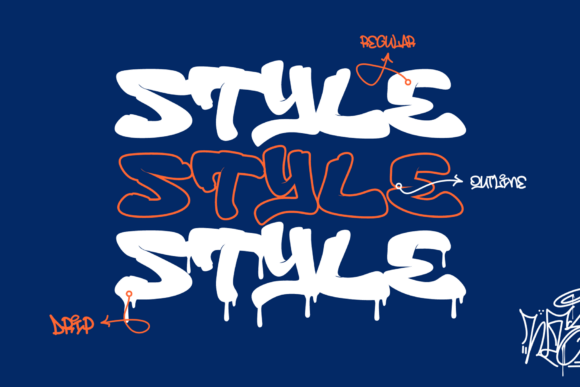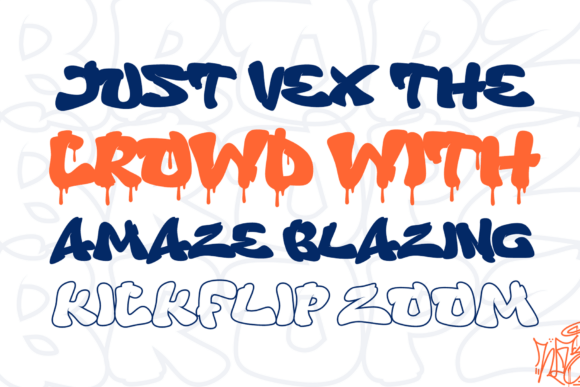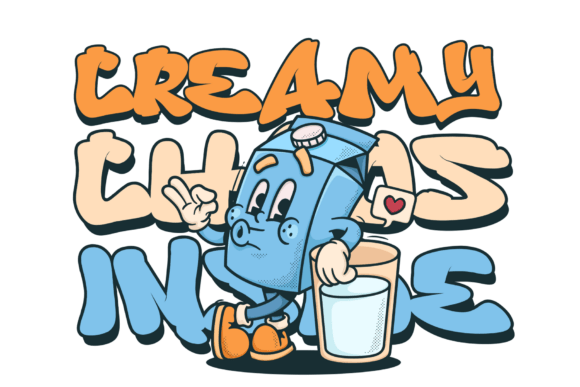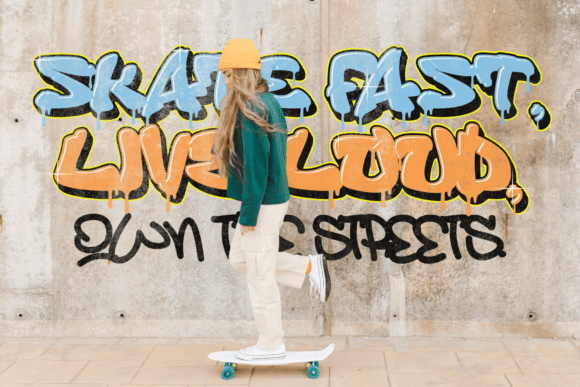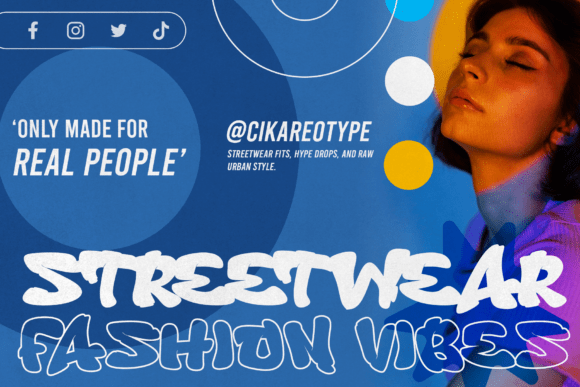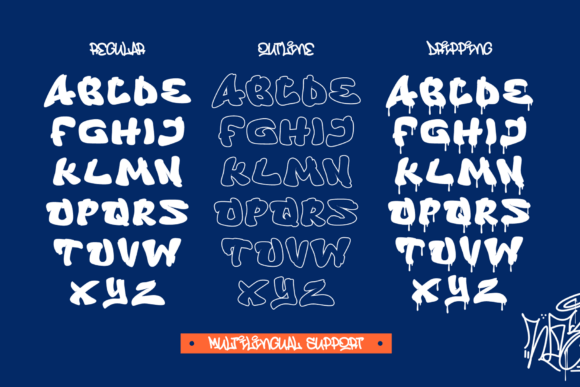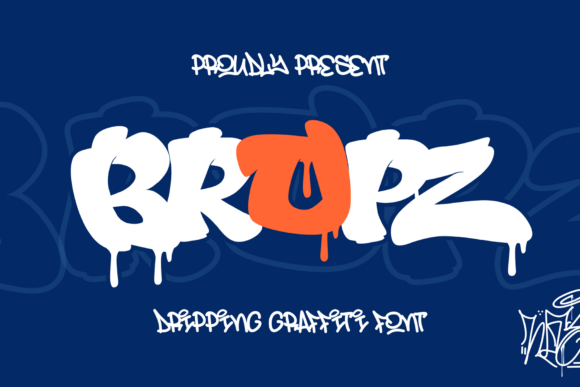
Introducing Bropz Font: The Ultimate Graffiti-Inspired Typeface for Bold Designs
Are you looking for a font that adds a touch of urban attitude to your designs? Look no further than Bropz, a bold and energetic dripping graffiti font that’s perfect for creating eye-catching posters, hip-hop album covers, sticker designs, streetwear, and more. With its thick, rounded strokes and expressive drips on every character, Bropz captures the raw, rebellious spirit of urban art, making it an ideal choice for designers and crafters who want to add a youthful, edgy vibe to their projects.
The Unique Features of Bropz Font
Bropz is more than just a font – it’s a statement piece. Its unique features make it stand out from other typefaces, and its versatility ensures that it can be used in a variety of design contexts. Here are some of the key features that make Bropz so special:
- Thick, rounded strokes: Bropz has a bold, chunky feel that’s reminiscent of graffiti art. Its rounded strokes give it a friendly, approachable vibe that’s perfect for designs that need a bit of personality.
- Expressive drips: Each character in Bropz features expressive drips that add to the font’s urban, edgy feel. These drips can be used to create a sense of movement and energy in your designs.
- Three styles to choose from: Bropz comes in three styles: Regular with drip, Regular without drip, and Outline. This gives you the flexibility to mix and match different styles to create a unique look that suits your design needs.
Bropz is a versatile font that can be used in a wide range of design projects. Here are some ideas to get you started:
- Posters: Use Bropz to create eye-catching posters for concerts, festivals, or other events. Its bold, energetic feel is sure to grab attention and make your poster stand out.
- Hip-hop album covers: Bropz is a perfect fit for hip-hop album covers, with its urban, edgy vibe and bold, dripping letters.
- Sticker designs: Bropz is a great choice for sticker designs, with its bold, colorful letters and expressive drips.
- Streetwear: Use Bropz to add a touch of urban attitude to your streetwear designs, such as t-shirts, hoodies, or hats.
Why Choose Bropz Font?
So why choose Bropz font for your design projects? Here are just a few reasons:
- Unique and eye-catching: Bropz is a one-of-a-kind font that’s sure to grab attention and make your designs stand out.
- Versatile: With three styles to choose from, Bropz can be used in a wide range of design contexts, from posters to hip-hop album covers to sticker designs.
Tips for Using Bropz Font
Here are a few tips for getting the most out of Bropz font:
- Experiment with different styles: Try mixing and matching different styles of Bropz to create a unique look that suits your design needs.
- Use it boldly: Bropz is a bold font, so don’t be afraid to use it boldly in your designs. It looks great in large sizes, and its expressive drips are sure to grab attention.
- Pair it with other fonts: Bropz can be paired with other fonts to create a unique and eye-catching look. Try pairing it with a clean, sans-serif font for a bold and modern look.
Bropz font is a bold and energetic dripping graffiti font that’s perfect for designers and crafters who want to add a touch of urban attitude to their designs. With its unique features, versatility, and ease of use, Bropz is an ideal choice for a wide range of design projects, from posters to hip-hop album covers to sticker designs. So why wait? Download Bropz font today and start creating bold, eye-catching designs that are sure to grab attention!